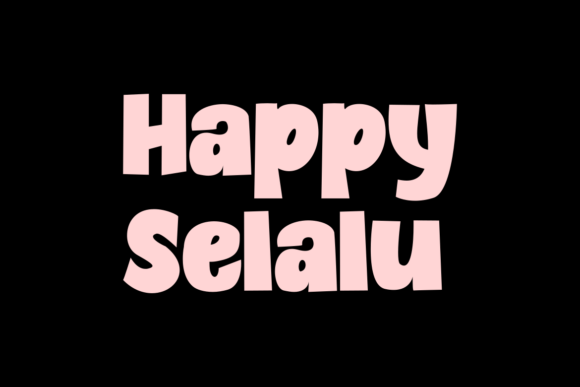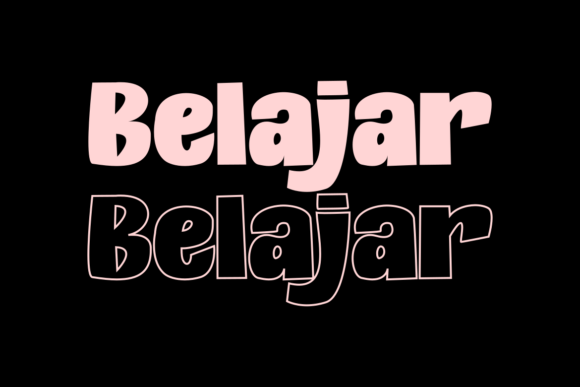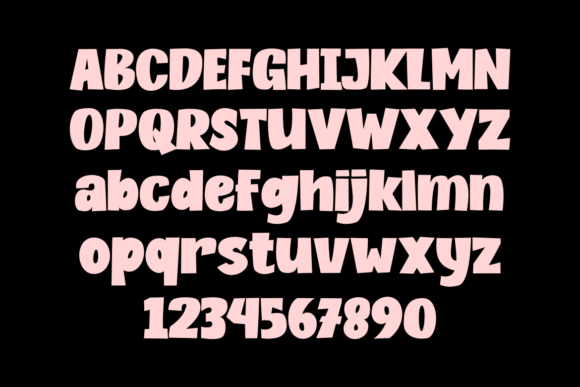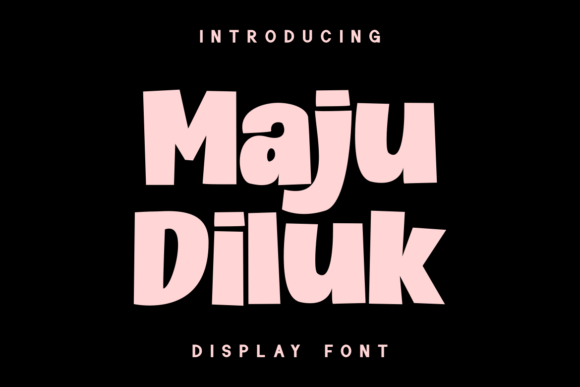
Introduction to Maju Diluk Font
Maju Diluk is bold and expressive.
Its thick and solid lines make it easy to read A balanced fusion of playful and professional, there are a ton of design projects this font will be perfect for.